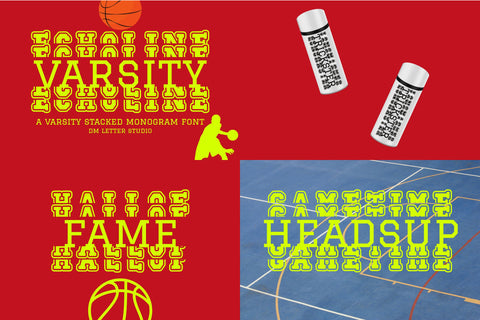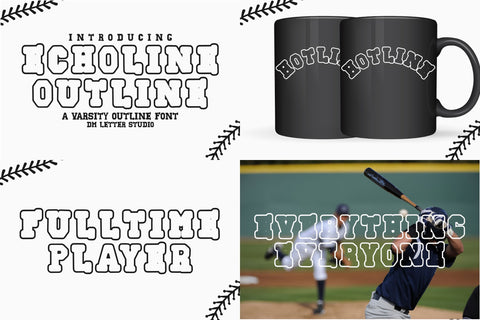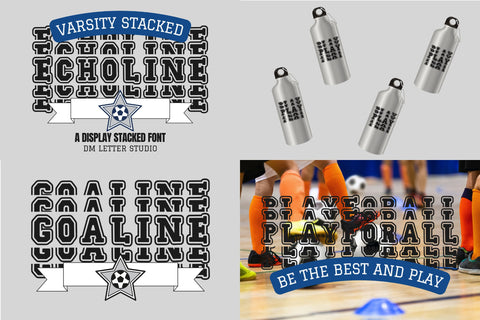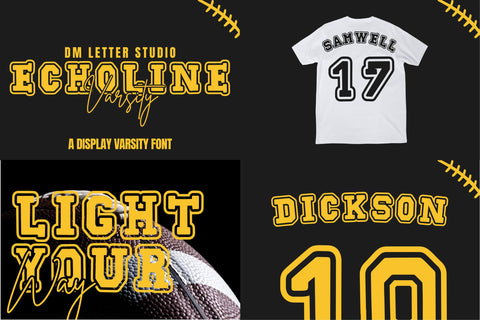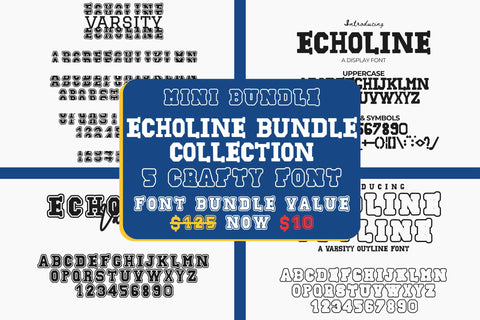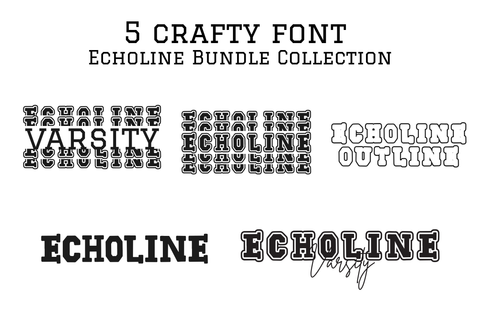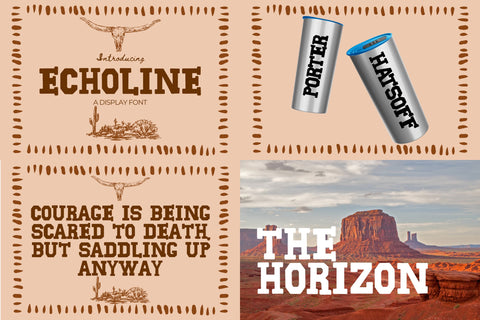
Mini Bundle – Echoline Collection
Step into timeless boldness and collegiate elegance with the Echoline Collection by DM Letter Studio! This exclusive mini bundle includes 5 powerful fonts rooted in varsity, monogram, and display traditions—perfect for standout sports branding, merchandise, and editorial designs.
✅ 5 Unique Fonts – Featuring classic varsity styles, stacked displays, and refined monograms:
Echoline – Serif Display Font
Echoline Outline – Stylish outlined variant
Echoline Varsity – Bold Collegiate Display Font
Echoline Varsity Stacked – Bold Layered Display Font
Echoline Varsity Stacked Monogram – Classic Varsity Initial Font
✅ Perfect for All Projects – Ideal for logos, apparel, sports merchandise, college posters, event branding, Cricut crafts, and more
🔥 Bold and Versatile – From sporty logos to stylish initials, these fonts deliver punch and polish
🔥 Athletic Heritage Meets Modern Use – Bring varsity vibes into modern branding with ease
🔥 Stacked & Monogram Ready – Customization-ready fonts for every layout
🔥 Perfect for Any Season – Strong in winter themes but usable all year round